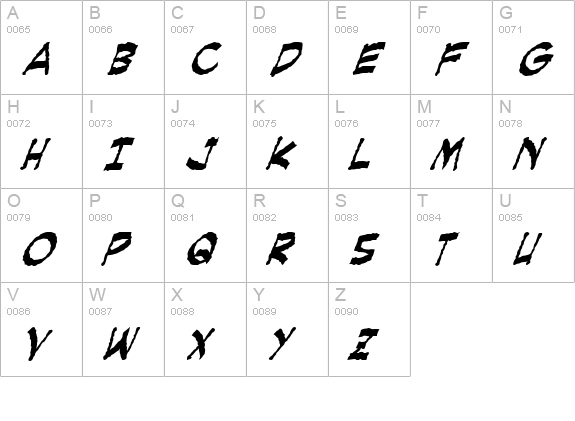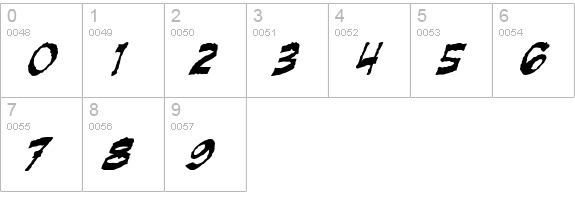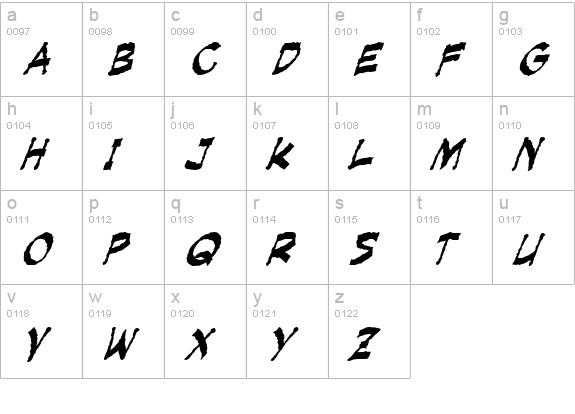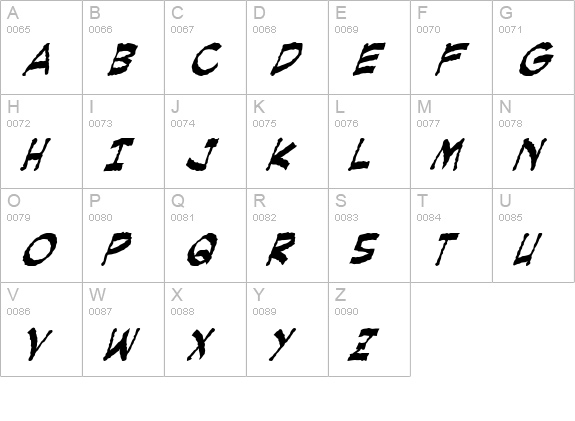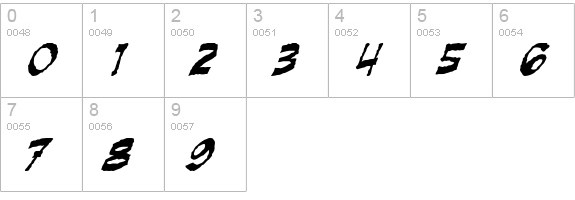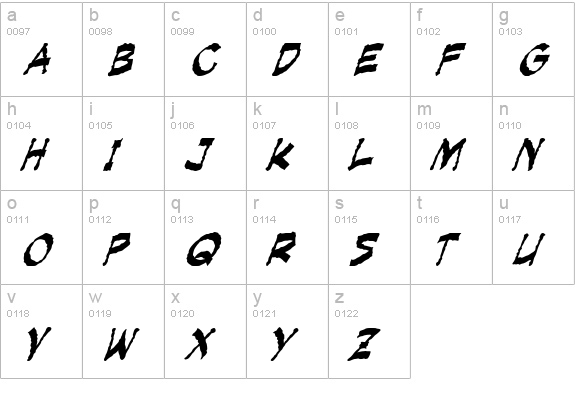
Creeping Evil Italic is a distinctive, italic variant in the Creeping typeface family \xE2\x80\x94 well suited to design and typography projects.
Creeping Evil Italic font is a hauntingly beautiful typeface that exudes an air of mystery and intrigue. Its slanted and twisted letterforms give off a sense of creeping darkness, perfect for adding a sinister touch to your designs. The elegant yet eerie curves of this font will captivate and draw in your audience, leaving a lasting impression. Best of all, Creeping Evil Italic font is available for free download at FontsMarket.com. This means you can easily access this unique and captivating font to use in your projects without any cost. Embrace the darkness and add a touch of intrigue to your designs with Creeping Evil Italic font today.